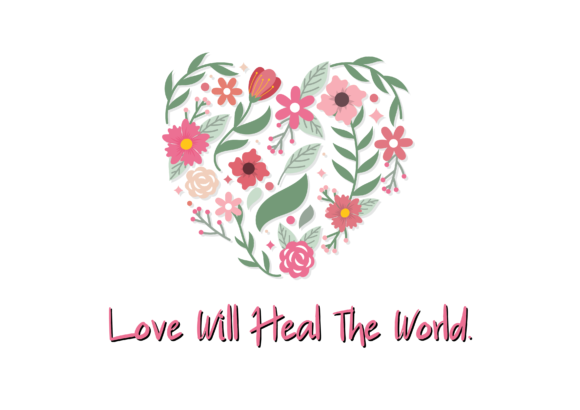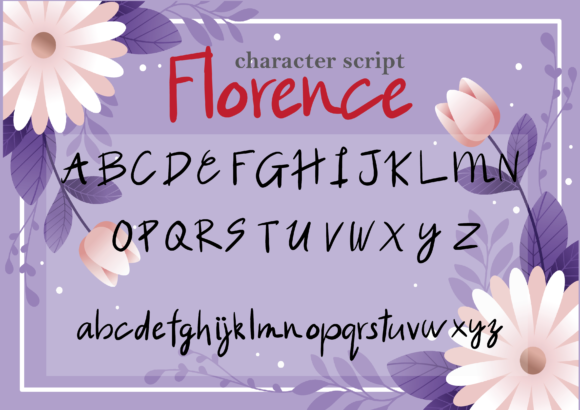
Florence Font
About Florence Font
Florence feels equally charming and elegant. This handwritten font will look outstanding in any context, whether it’s being used on busy backgrounds or as a standalone headline!